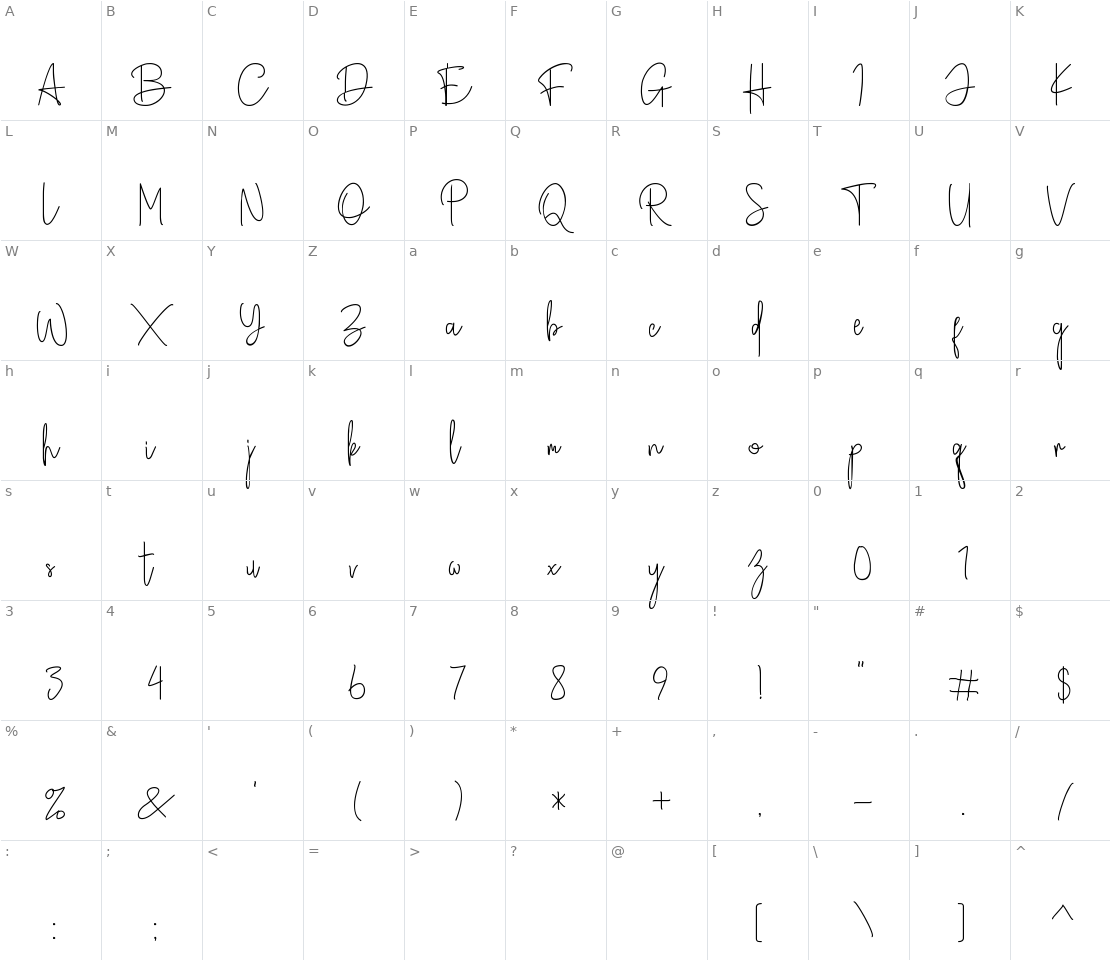
Broetown Signature
by Oki Candra Setiawan
Broetown Signature is a thin, flowing script from Oki Candra Setiawan with a monoline stroke that keeps it feeling effortless and natural, like an actual pen signature rather than a calligraphic performance. The lightweight letterforms have a feminine elegance without being fussy, making it a go-to for wedding stationery, personal branding, and editorial accents where you need something that reads as intimate and refined.